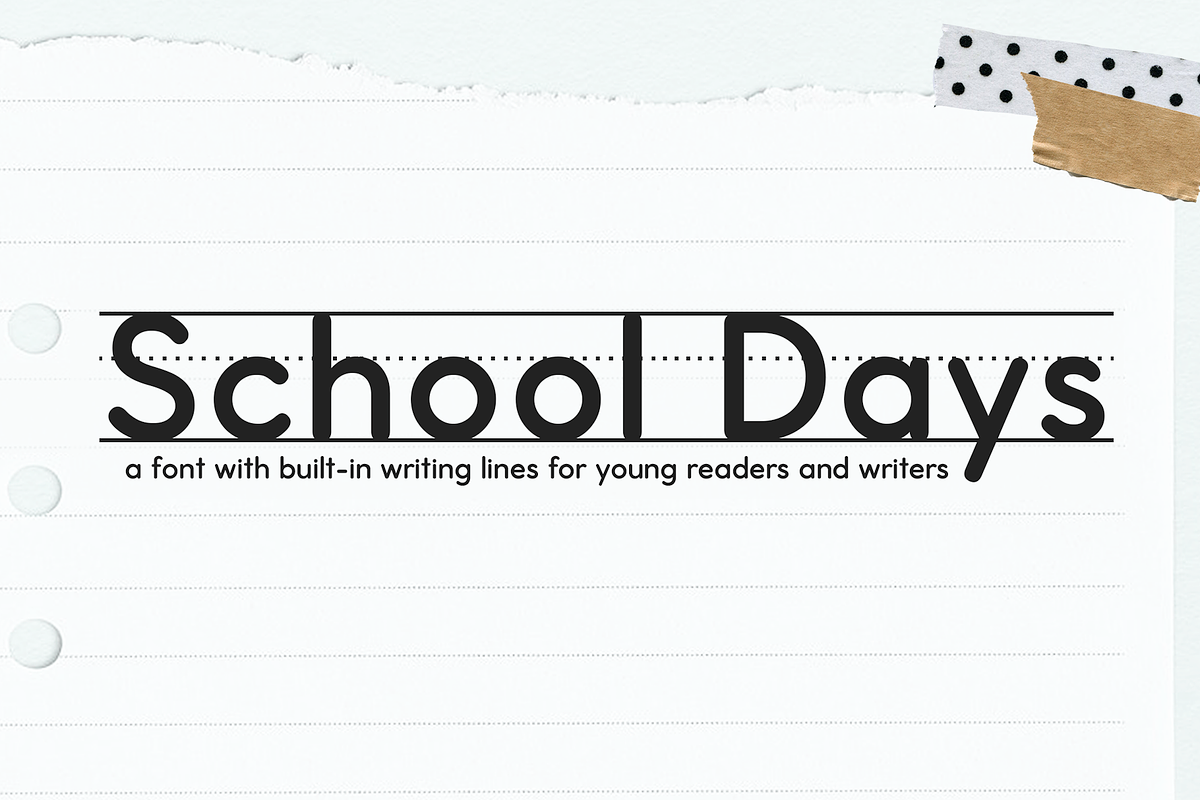
School Days | Handwriting Lines Font Free Download is a nostalgic and functional typeface that mimics traditional school handwriting worksheets, complete with guideline lines to help with letter placement and learning. It’s the perfect font for teachers, parents, and educational content creators looking to create tracing sheets, practice books, classroom decor, or early learning activities.
This font helps reinforce proper handwriting structure, making it ideal for preschool, kindergarten, and elementary use. Its clear characters and classic format make it both fun and practical for young learners.